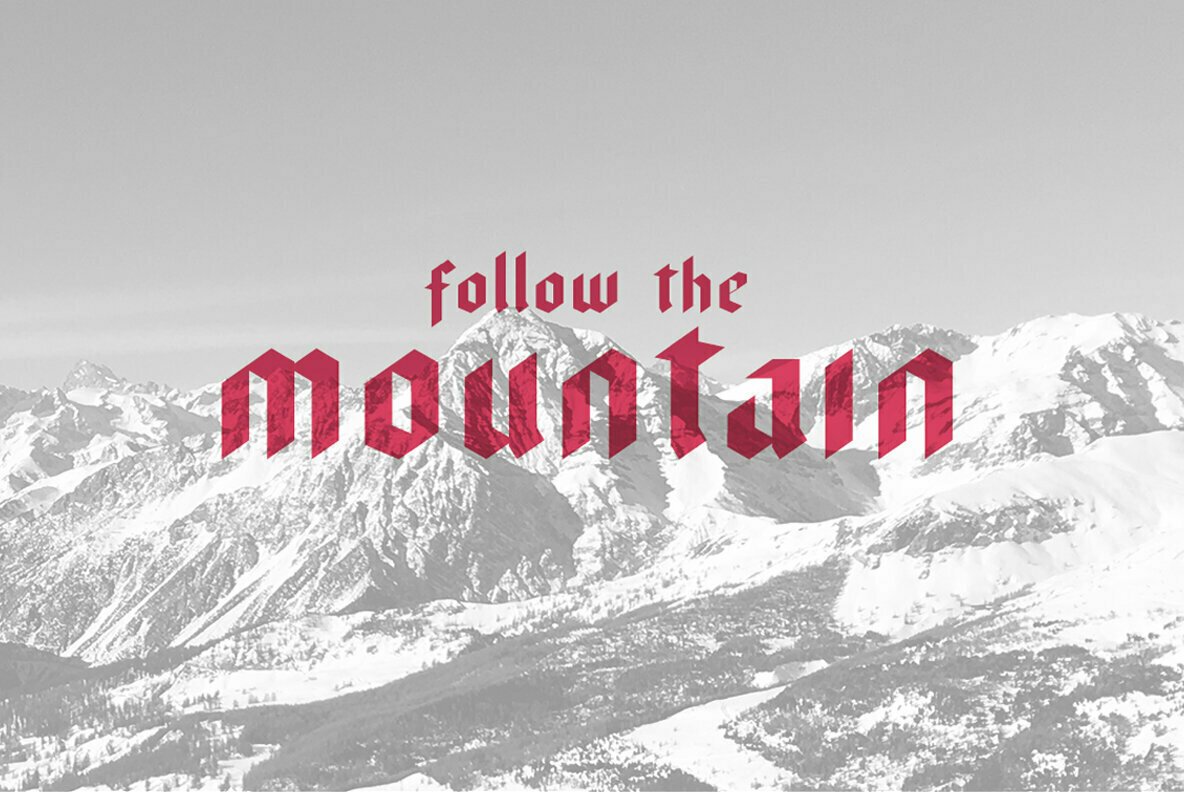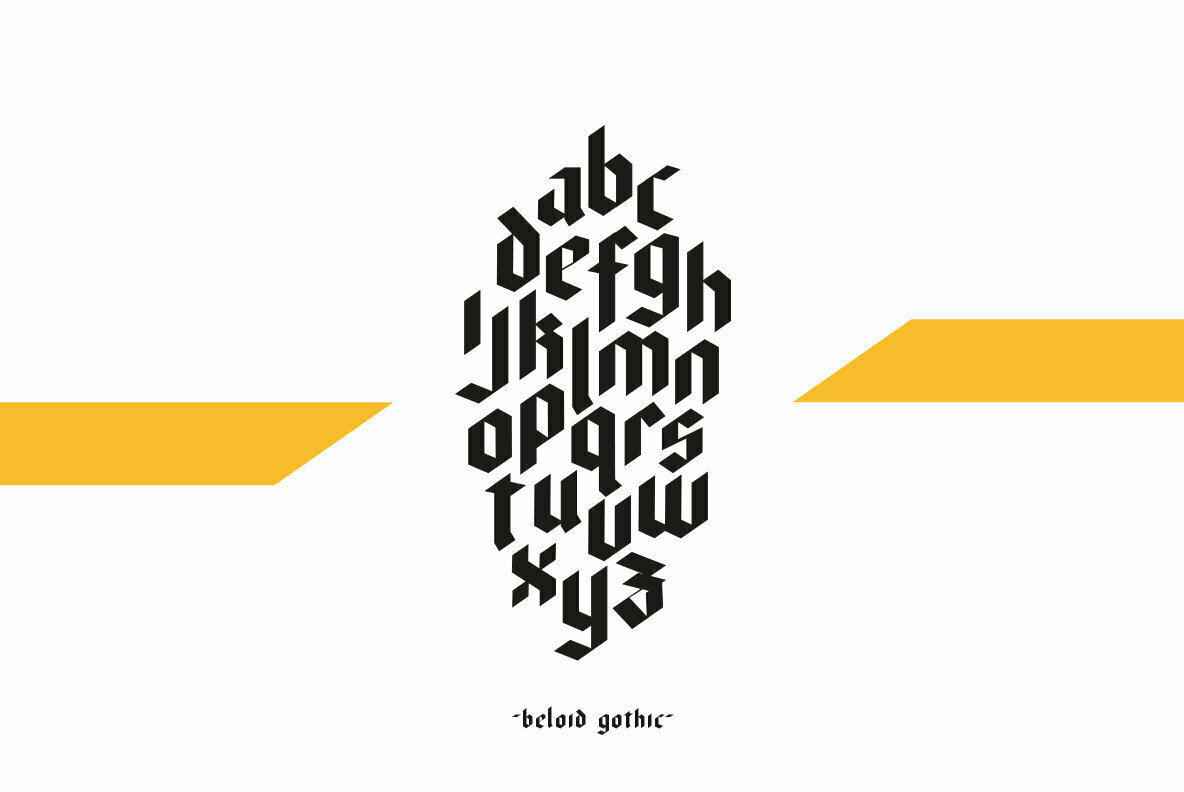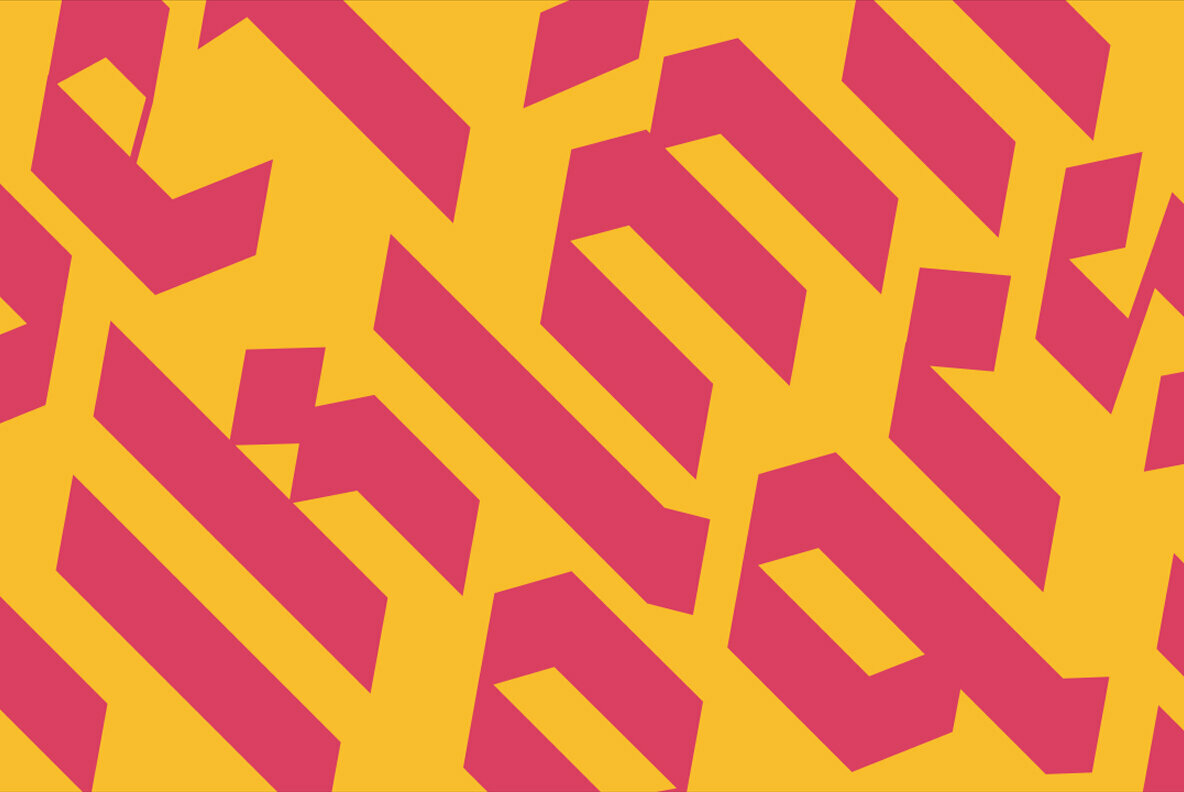
Beloid Gothic is a modern blackletter typeface. Strong and geometric with a fraktur style using a 35 degree angled nib. Taking inspiration from medieval scriptures, Beloid was designed with bold titles and logotype in mind.
This statement font can be used for posters, magazines and to create logos.
This set includes uppercase and lowercase letters, numerals, a range of punctuation, and a full European character set.